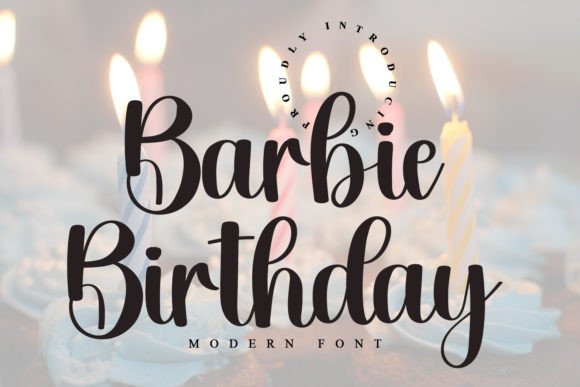
Introducing Barbie Birthday Font: The Perfect Addition to Your Design Collection
Are you a designer or crafter looking for a fresh and beautiful font to elevate your creative projects? Look no further than the Barbie Birthday Font! This stunning font is perfect for a wide range of design purposes, from YouTube banners and cover logo mockups to wedding invitations, ID cards, flyers, crafts, and more.
What Makes Barbie Birthday Font So Special?
The Barbie Birthday Font is a unique and eye-catching font that is sure to make your designs stand out. Its fresh and beautiful design makes it perfect for any project that requires a touch of elegance and sophistication. Whether you’re creating a YouTube banner, a wedding invitation, or a craft project, this font is sure to impress.
Key Features of Barbie Birthday Font
- Fresh and Beautiful Design: The Barbie Birthday Font features a modern and stylish design that is sure to catch the eye.
- Versatile: This font is perfect for a wide range of design purposes, from digital projects like YouTube banners and cover logo mockups to print projects like wedding invitations and ID cards.
- Elegant and Sophisticated: The Barbie Birthday Font adds a touch of elegance and sophistication to any design, making it perfect for special occasions like weddings and birthdays.
Uses for Barbie Birthday Font
The Barbie Birthday Font is a versatile font that can be used for a wide range of design purposes, including:
- YouTube Banners: Create eye-catching YouTube banners that showcase your brand or personality.
- Cover Logo Mockups: Create stunning cover logo mockups that showcase your brand or product.
- Wedding Invitations: Create beautiful and elegant wedding invitations that set the tone for your special day.
- ID Cards: Create professional and stylish ID cards that make a great impression.
- Flyers: Create eye-catching flyers that promote your business or event.
- Crafts: Use the Barbie Birthday Font to add a personal touch to your craft projects, such as scrapbooking and card making.
- Invitations: Create beautiful and elegant invitations for any occasion, from birthdays to graduations.
Why Designers and Crafters Love Barbie Birthday Font
Designers and crafters love the Barbie Birthday Font for its versatility, elegance, and ease of use. This font is perfect for anyone who wants to add a touch of sophistication and style to their designs. Whether you’re a professional designer or a crafter, the Barbie Birthday Font is a great addition to your font collection.
Tips for Using Barbie Birthday Font
- Experiment with Different Sizes and Colors: Try out different sizes and colors to see what works best for your design.
- Pair with Other Fonts: Pair the Barbie Birthday Font with other fonts to create a unique and eye-catching design.
- Use for Headings and Titles: Use the Barbie Birthday Font for headings and titles to add a touch of elegance and sophistication.
The Barbie Birthday Font is a fresh and beautiful font that is perfect for designers and crafters who want to add a touch of elegance and sophistication to their designs. With its versatile design, ease of use, and wide range of uses, this font is a great addition to any font collection. So why wait? Download the Barbie Birthday Font today and start creating stunning designs that impress!